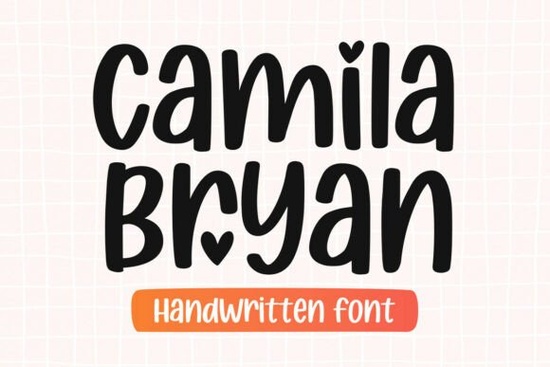
If you're looking for a handwritten font that feels personal yet polished, the Camila Bryan Font might be exactly what your next project needs. It’s a modern script with smooth, flowing lines and just the right amount of character ideal for everything from wedding invitations to boutique branding. Unlike overly ornate scripts that can overwhelm a layout, Camila Bryan strikes a balance between elegance and readability, making it versatile for both digital and print use.
What makes Camila Bryan stand out among script fonts?
Handwritten fonts are everywhere these days, but not all of them hold up when used in real-world designs. Camila Bryan avoids common pitfalls like inconsistent letter spacing or awkward connections between characters. Each glyph is carefully crafted so words flow naturally, almost like they were penned by hand but with the consistency you need for professional results.
It works especially well for:
- Custom logo design for small businesses
- Social media quotes and graphics
- Print-on-demand products like mugs, T-shirts, and tote bags
- Invitations, greeting cards, and packaging labels
If you’ve tried other script fonts and found them too stiff or too chaotic, Camila Bryan offers a middle ground expressive without being messy.
How does it compare to other popular script fonts?
When browsing Creative Fabrica’s collection, you’ll find plenty of great options in the script category. For example, the American Cowboys font leans into rustic charm with bold, uneven strokes perfect for western-themed projects. Meanwhile, the Better Together font has a softer, more romantic feel, ideal for couple-focused designs like anniversary cards or wedding signage.
Camila Bryan sits comfortably between those extremes. It’s not as rugged as cowboy-style scripts (like the Cowboy font), nor as delicate as some calligraphy-inspired choices such as the Elemental Calligraphy font. Instead, it delivers clean, confident strokes that adapt easily to different moods depending on your layout and color choices.
Who should use this font?
This font shines for creators who want something that feels human but still looks professional. Think:
- Small business owners designing their own logos or social content
- Crafters making custom vinyl decals or embroidery patterns
- Print-on-demand sellers creating quote-based merchandise
- Hobbyists personalizing gifts or home decor
Because it includes standard uppercase and lowercase letters plus punctuation and basic symbols, it’s ready to use right out of the box no need for complex OpenType features unless you want them.
Tips for using Camila Bryan effectively
To get the most out of this font:
- Avoid tiny sizes its fine details can blur in small print or low-resolution screens.
- Pair it with a simple sans-serif (like Montserrat or Lato) for contrast and clarity.
- Use generous line spacing in multi-line text to prevent the descenders and ascenders from clashing.
- Test it on your actual product what looks great on screen might need tweaking on a physical mug or T-shirt.
Remember: even the best font won’t fix poor composition. Keep your message clear, your layout uncluttered, and let the typography enhance not dominate your design.